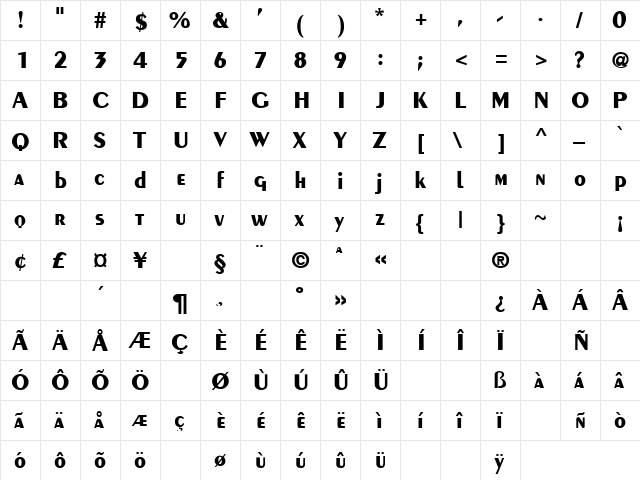
Physical 4 Regular
Design Context for Physical 4 Typeface
Physical 4 offers clean, dependable letterforms without strong stylistic allegiance, making it a practical choice for designers who need flexibility.